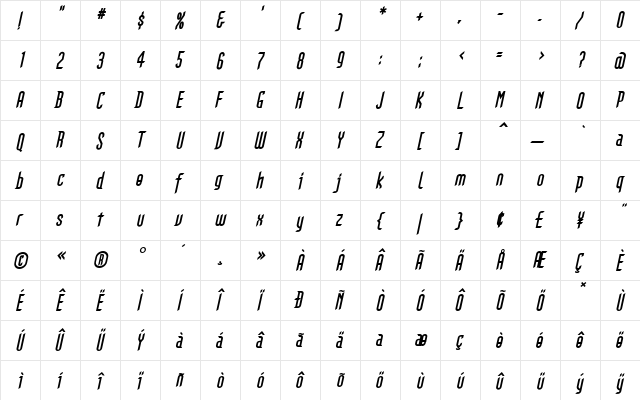
Gothikka Bold Italic Font Preview
Design Context for Gothikka Typeface
Gothikka takes a measured approach to typography — its balanced proportions and neutral character make it a reliable workhorse for both digital and print work. The dynamic lean of this cut emphasises speed and emphasis in any layout. Its bold stroke weight gives it real presence on the page.
Pro Tip: Try Gothikka for annotation and caption copy alongside an upright companion — the contrast in angle creates a dynamic but ordered typographic system.